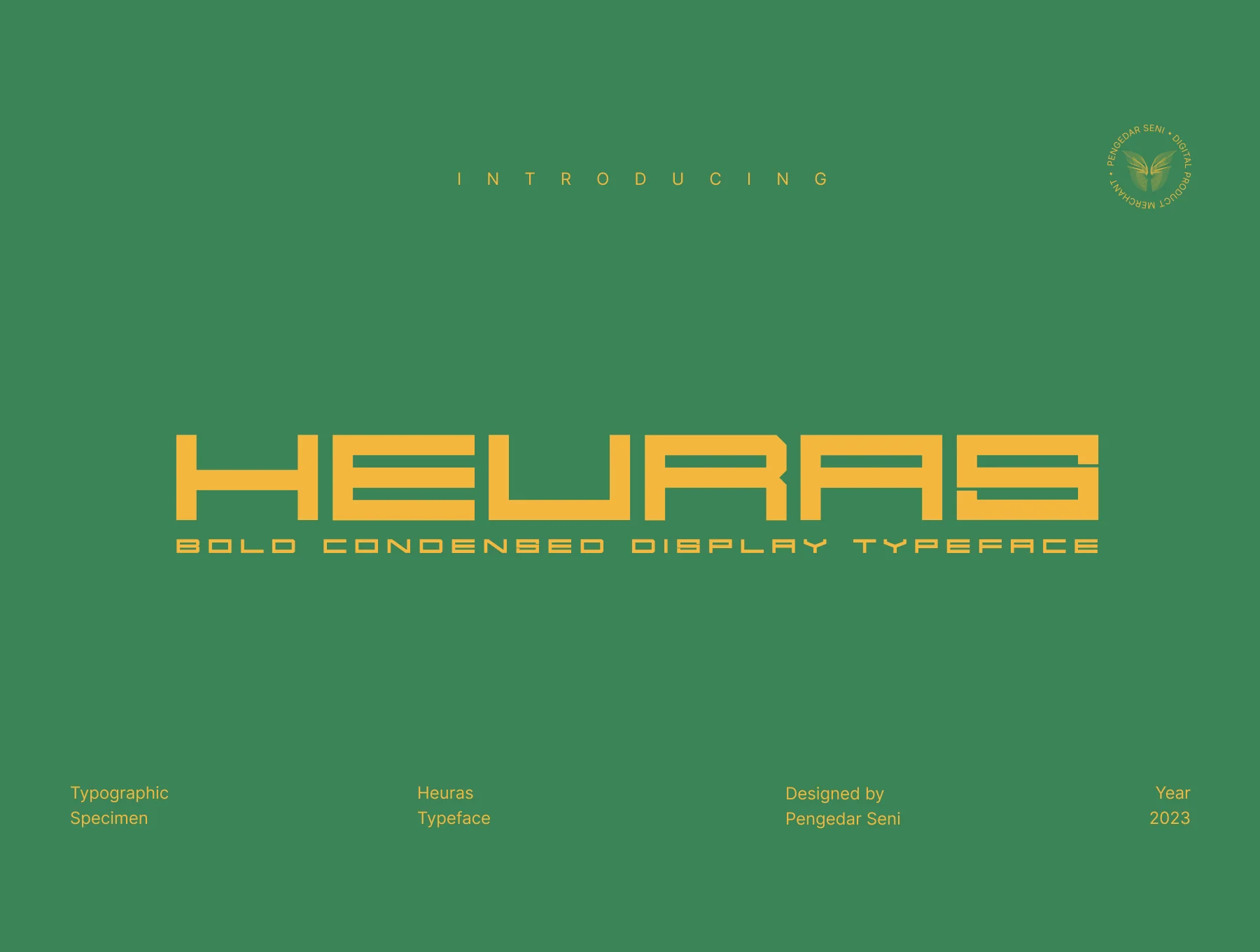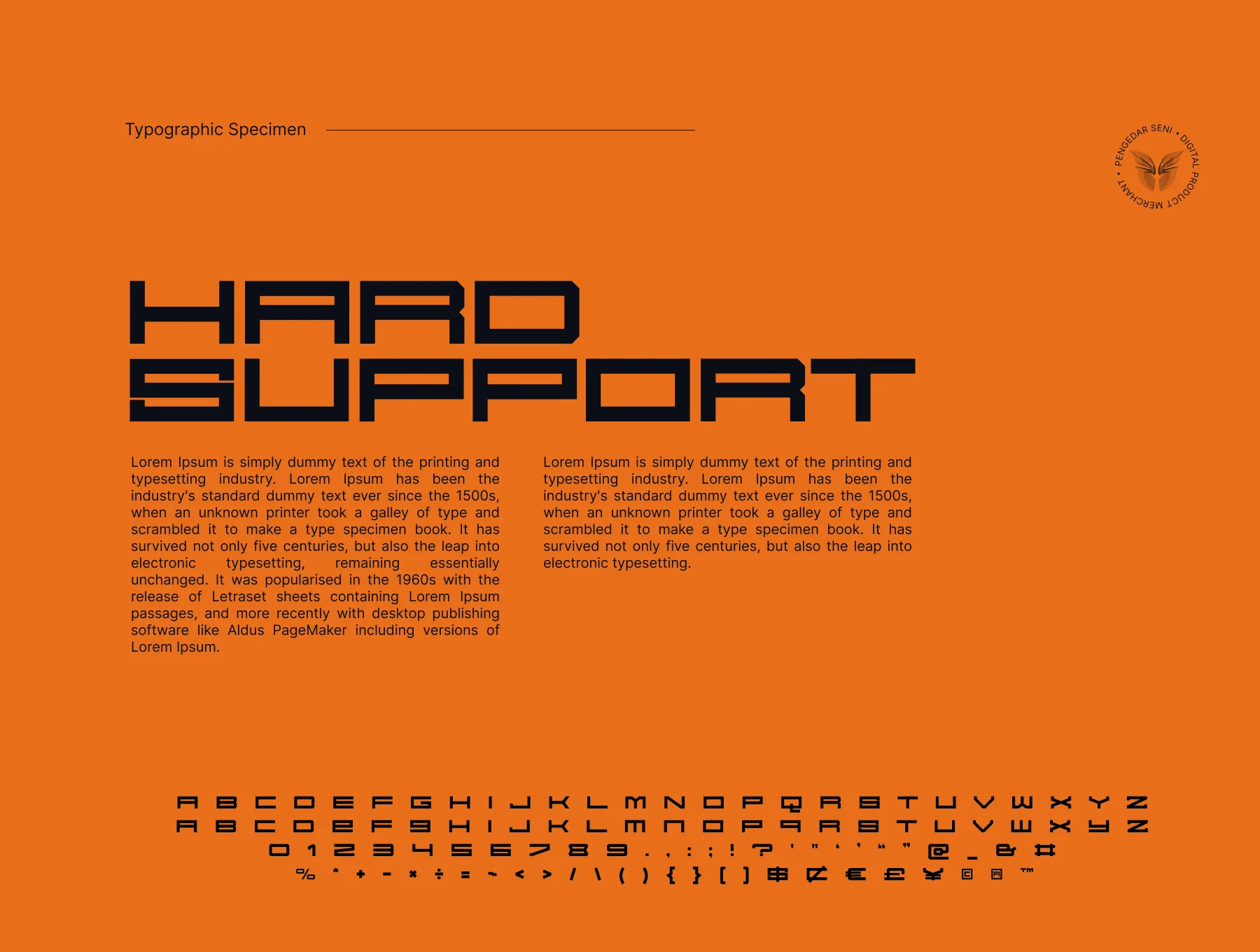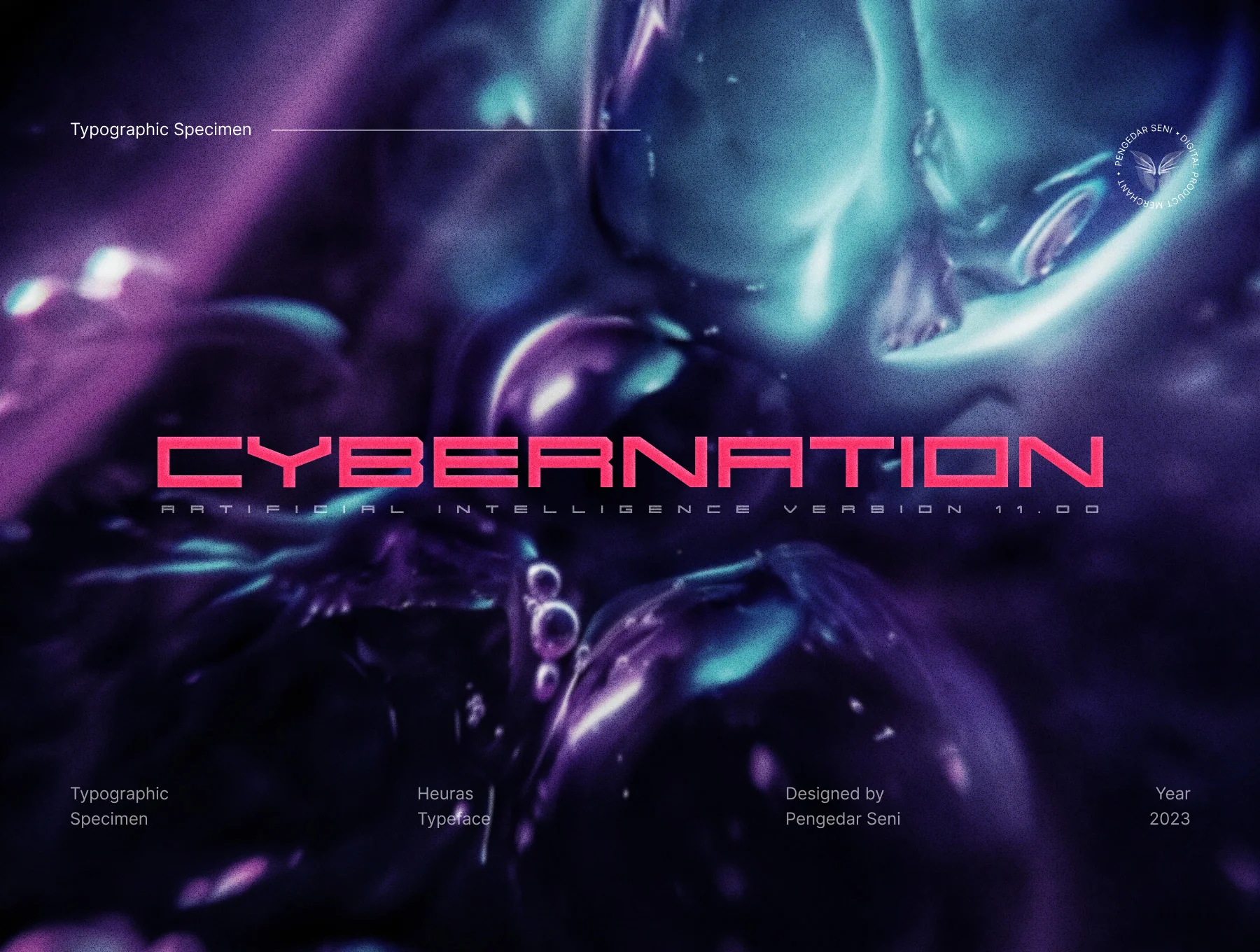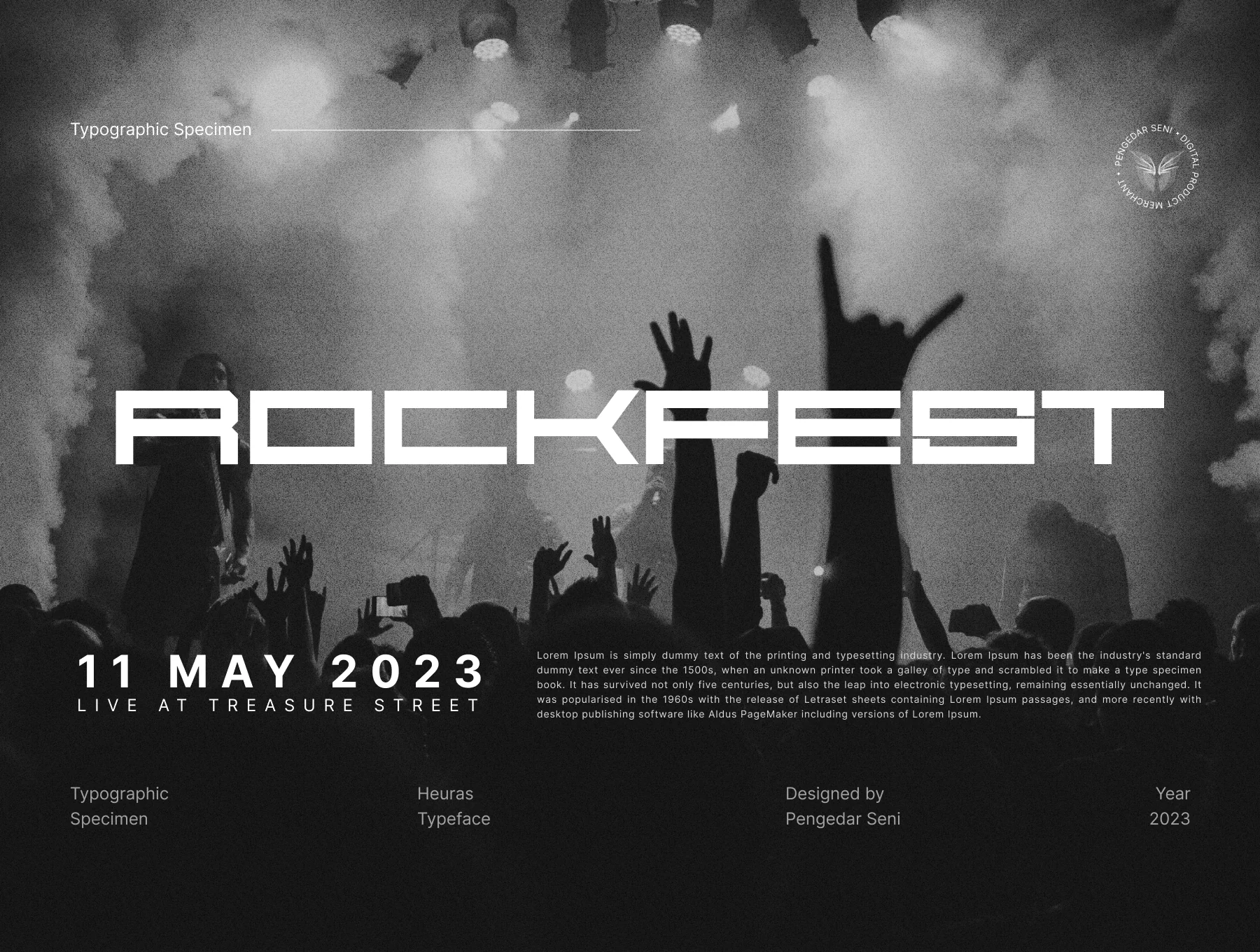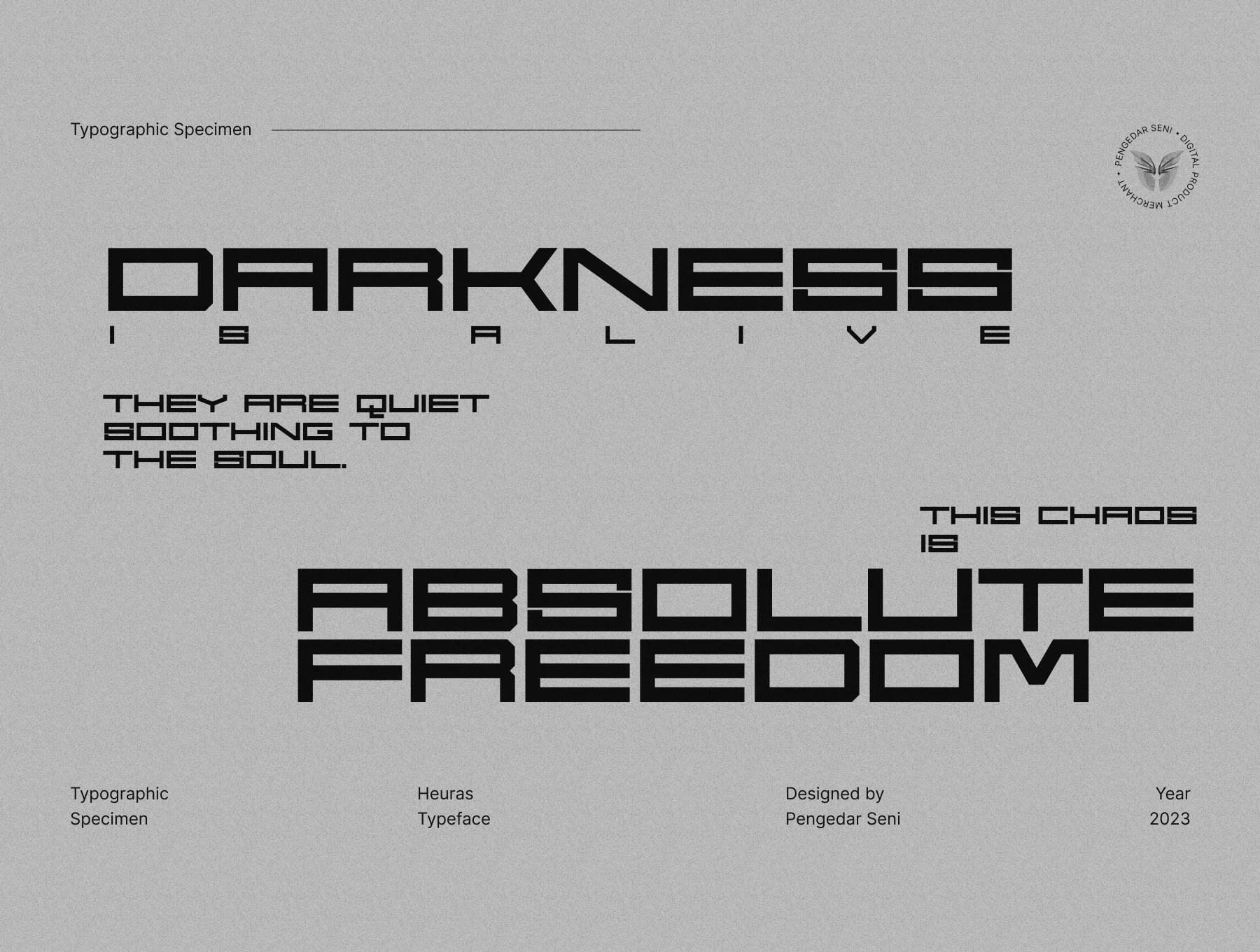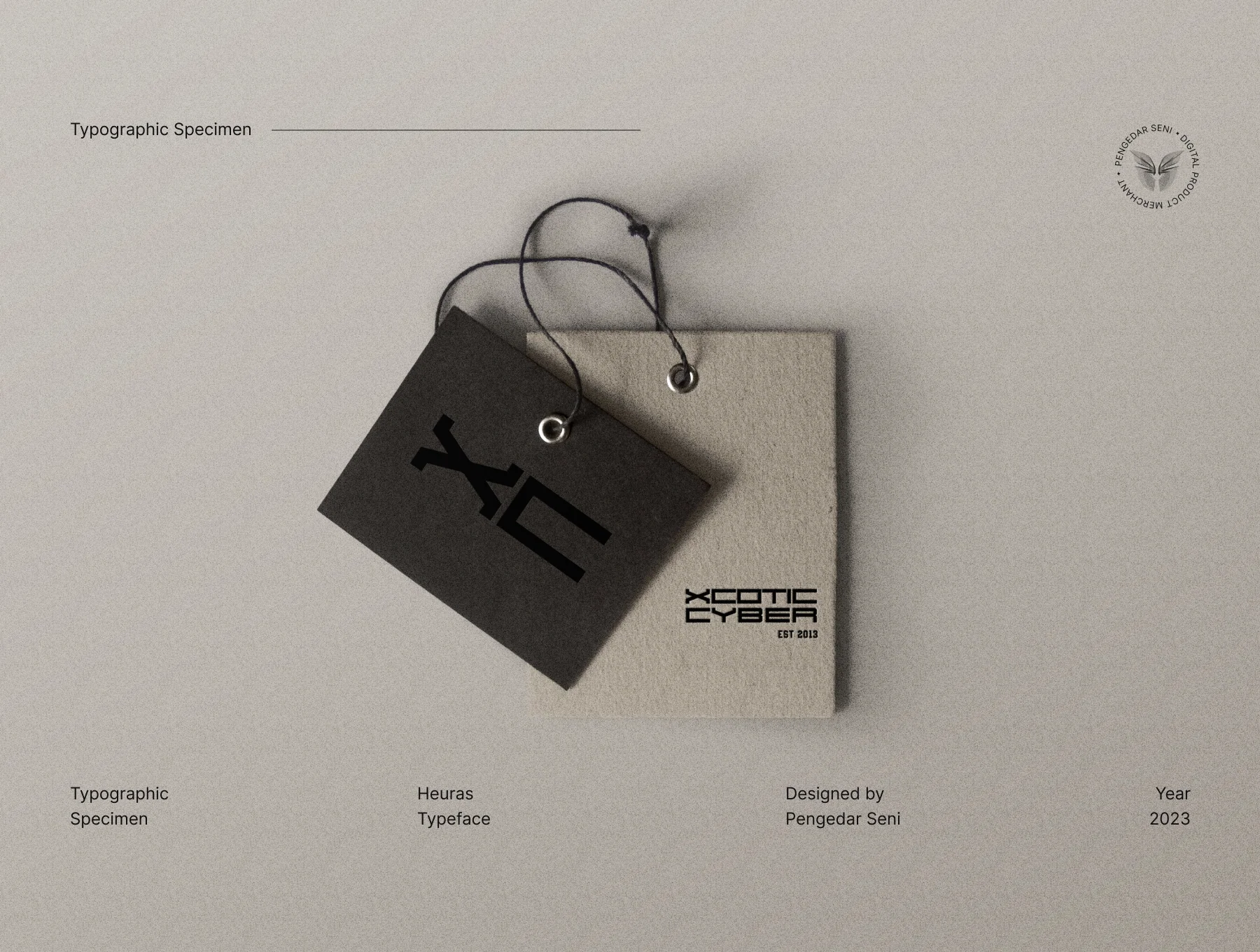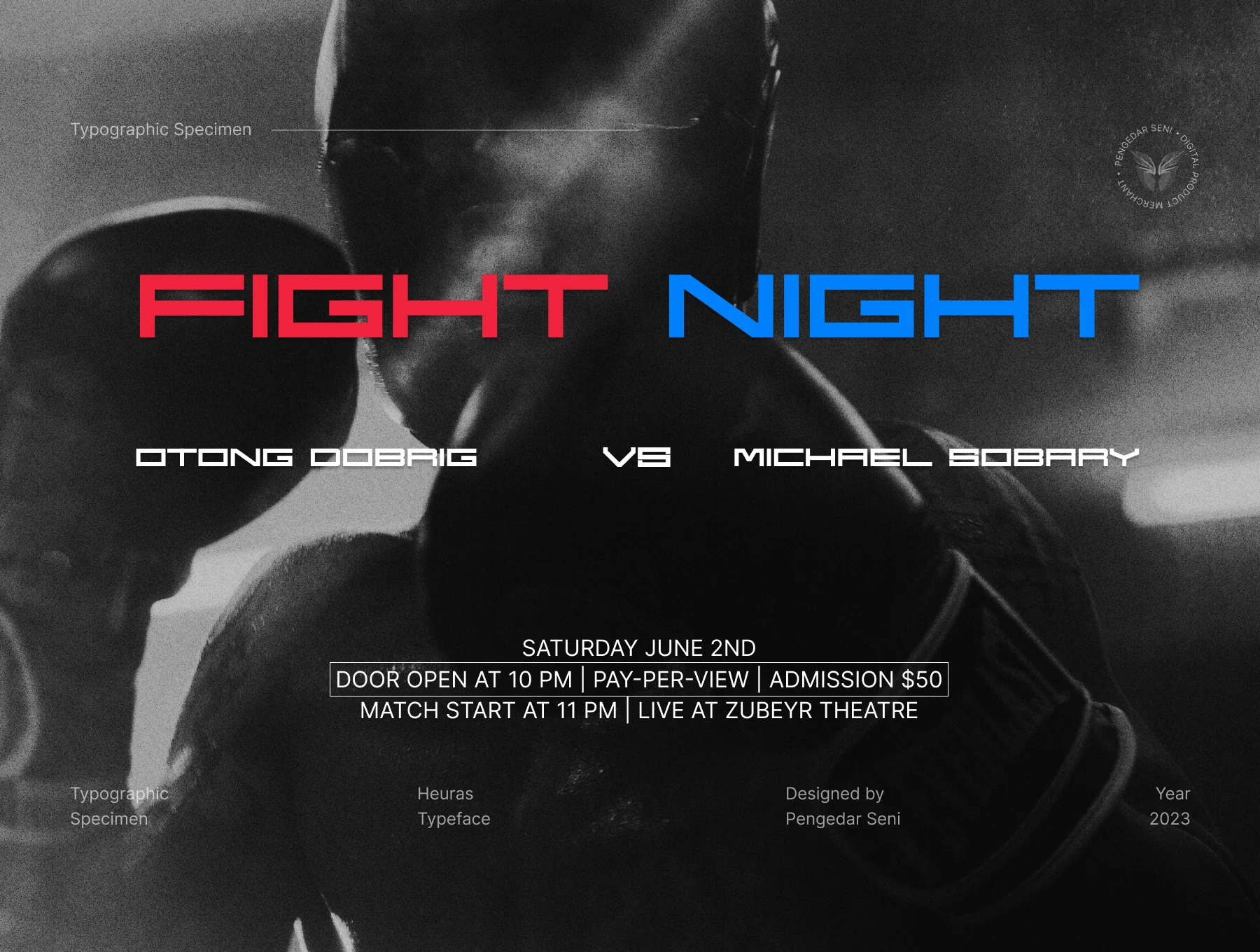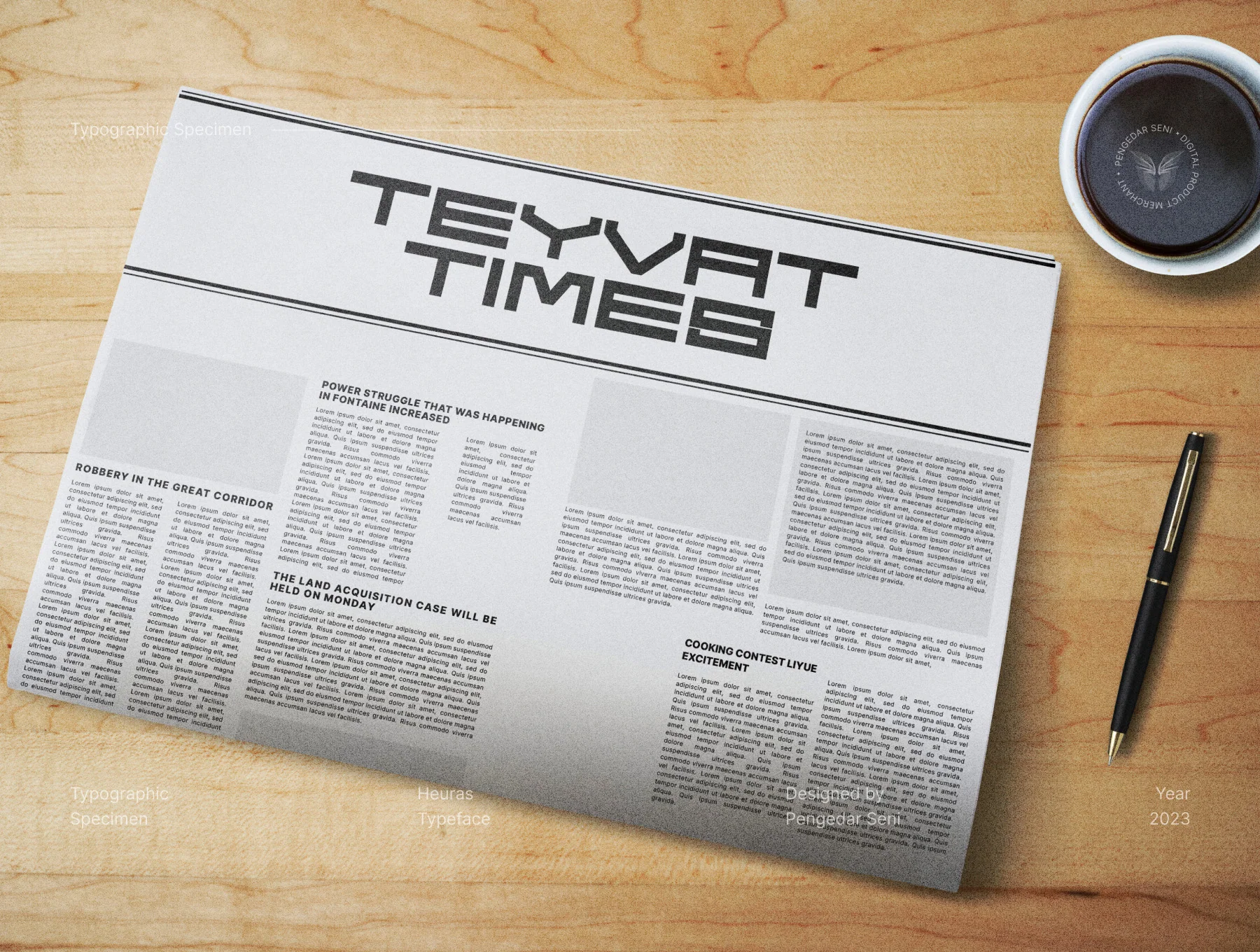
Heuras - Condensed Bold Sans
A Striking Condensed Display Font
Sans serif font style
Distinctive letterforms
Capital and small letter sets
Heuras is a bold, condensed display font with an athletic, striking, powerful style. Ideal for titles and headlines, its balanced characters also work well in logos for sports, action, futuristic, and technology themes. Its concept centers on bold horizontal forms, strength, courage, dominance, balance, and a future-forward look.